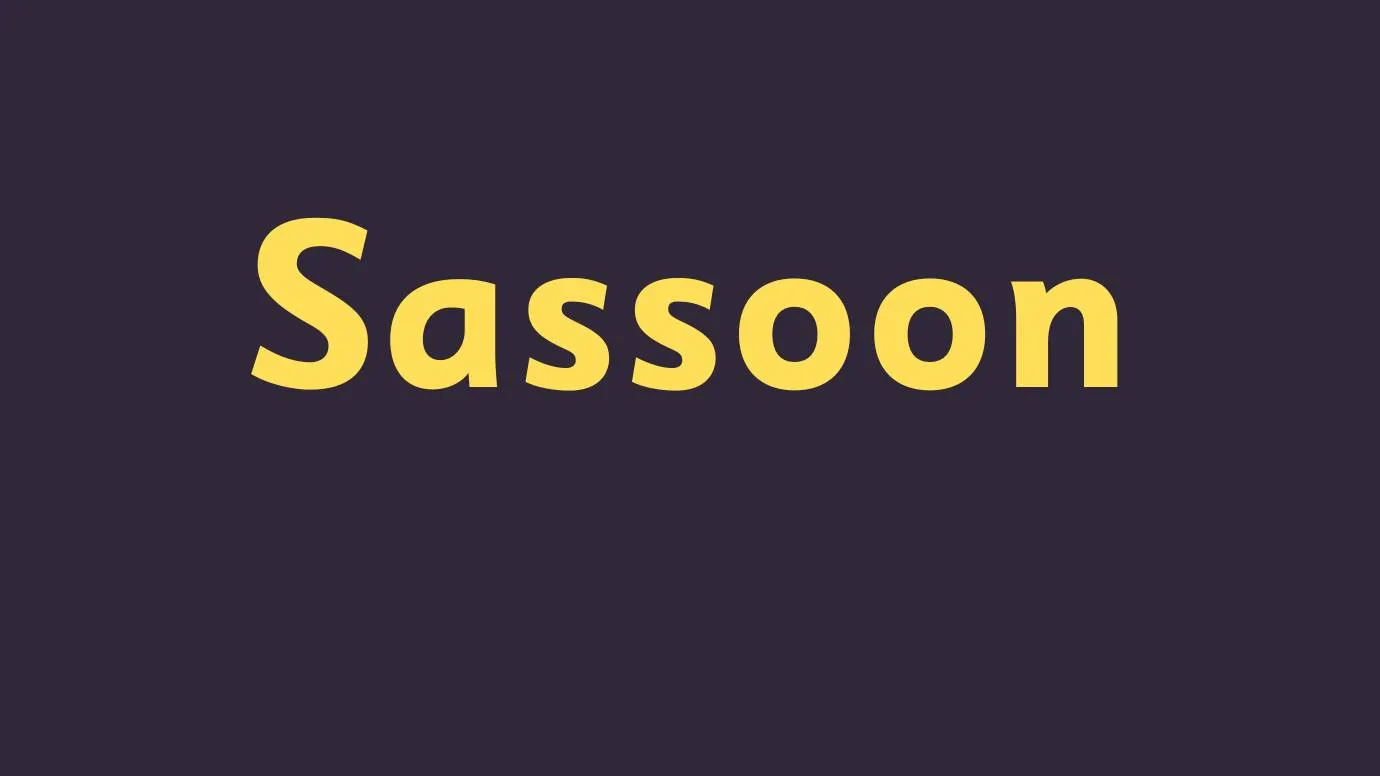
Sassoon Font Family enjoys widespread recognition and is a favorite among many, thanks to the creative efforts of Rosemary Sassoon and Adrian Williams. It’s frequently selected for numerous projects and falls under the Sans-Serif Typeface category.
This amazing typeface is a very simple and elegant typeface. The main reason for its popularity is its clean textures. After using Sassoon Font in your project, you will get the best response from your visitors. It is best and perfect for CSS.